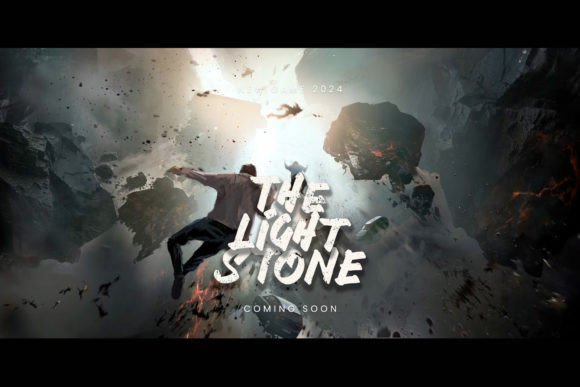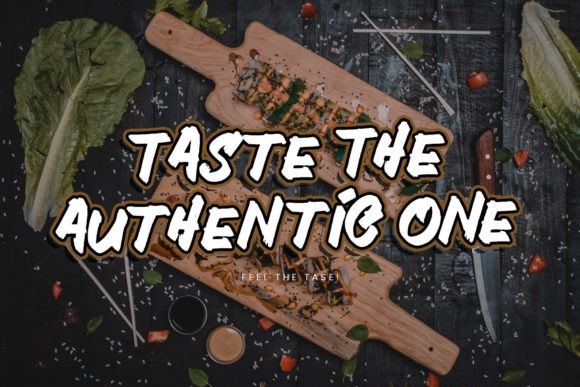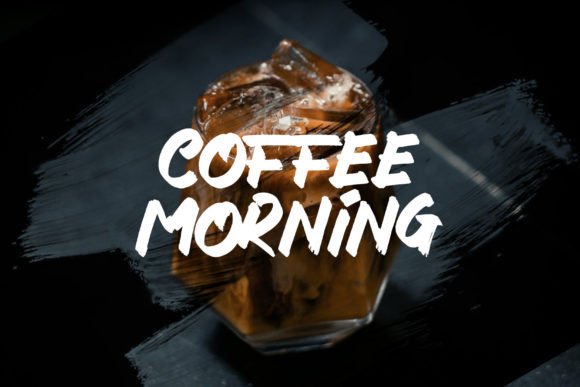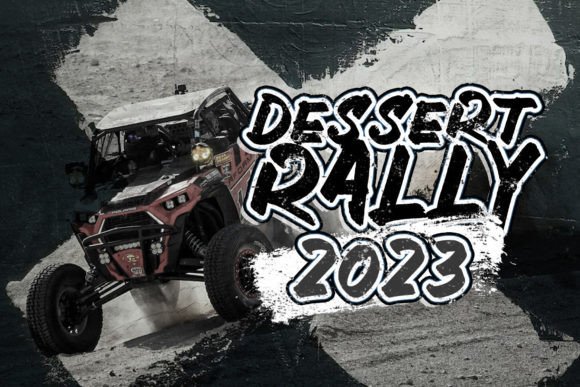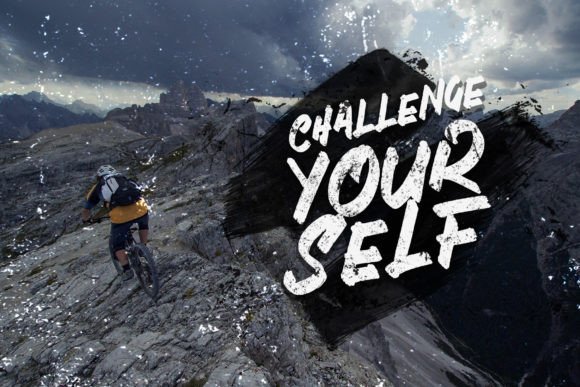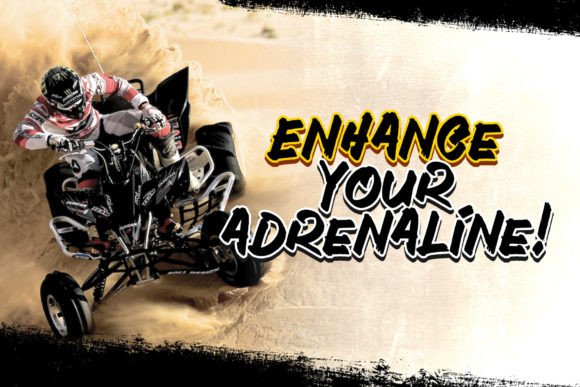
Introducing Everestoria Font: The Ultimate Brush Marker for Creative Expression
Are you a designer or crafter looking for a font that embodies artistic expression and boldness? Look no further than Everestoria Font, a stylish brush marker font that captures the essence of creativity and sophistication. With its fluid and expressive brush strokes, Everestoria emulates the look and feel of a hand-painted masterpiece, making it perfect for projects that demand a touch of elegance and creativity.
The Characteristics of Everestoria Font
Everestoria Font is a unique and captivating font that boasts a range of characteristics that set it apart from other fonts. Its fluid and expressive brush strokes give each letter a sense of dynamism and flair, showcasing the authentic texture and character of brushwork. The font’s sophisticated yet approachable design makes it perfect for a wide range of projects, from logos and branding to invitations and more.
The Benefits of Using Everestoria Font
So why choose Everestoria Font for your next project? Here are just a few benefits of using this versatile and stylish font:
- Unique and Captivating Design: Everestoria Font’s brush marker style gives it a unique and captivating design that is sure to grab attention.
- Versatility: The font’s sophisticated yet approachable design makes it perfect for a wide range of projects, from logos and branding to invitations and more.
- Timeless Appeal: Everestoria Font’s classic brush strokes and elegant design give it a timeless appeal that will never go out of style.
- Easy to Read: Despite its artistic and expressive design, Everestoria Font is easy to read and understand, making it perfect for use in a variety of contexts.
Everestoria Font is perfect for designers and crafters who are looking for a font that embodies creativity and sophistication. Whether you’re working on a logo, branding project, or invitation, this font is sure to make your work stand out. Its unique and captivating design makes it perfect for:
- Logos and Branding: Everestoria Font’s bold and expressive design makes it perfect for logos and branding projects that demand a touch of elegance and creativity.
- Invitations and Stationery: The font’s sophisticated yet approachable design makes it perfect for invitations, stationery, and other paper crafts.
- Digital Art and Illustration: Everestoria Font’s fluid and expressive brush strokes make it perfect for use in digital art and illustration projects.
What Sets Everestoria Font Apart
So what sets Everestoria Font apart from other fonts? Here are just a few things that make this font truly unique:
- Authentic Brush Strokes: Everestoria Font’s brush strokes are authentic and expressive, giving each letter a sense of dynamism and flair.
- Hand-Painted Look and Feel: The font’s fluid and expressive brush strokes give it a hand-painted look and feel that is sure to grab attention.
- Sophisticated yet Approachable Design: Everestoria Font’s sophisticated yet approachable design makes it perfect for a wide range of projects and contexts.
In conclusion, Everestoria Font is a stylish brush marker font that captures the essence of artistic expression and boldness. With its fluid and expressive brush strokes, sophisticated yet approachable design, and timeless appeal, this font is perfect for designers and crafters who are looking for a font that embodies creativity and sophistication. Whether you’re working on a logo, branding project, or invitation, Everestoria Font is sure to make your work stand out.